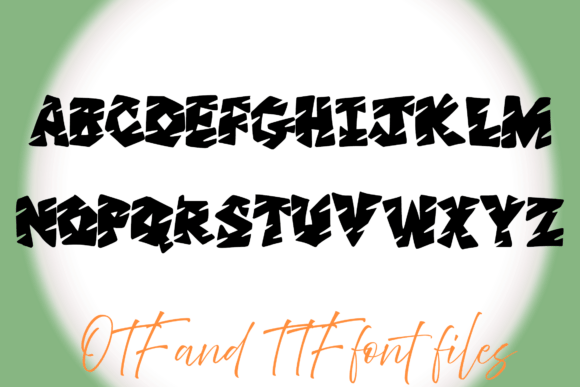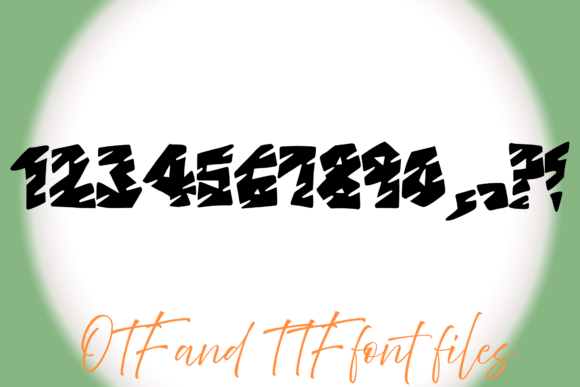
Jungle Print Font – Free Download
Introduction to Jungle Print Font
Jungle Print Font brings wild energy and organic movement to your designs.
Inspired by nature and camo textures, its irregular cuts and jungle vibes are perfect for adventure branding, safari posters, or kids’ animal-themed graphics .
Key Features of Jungle Print Font